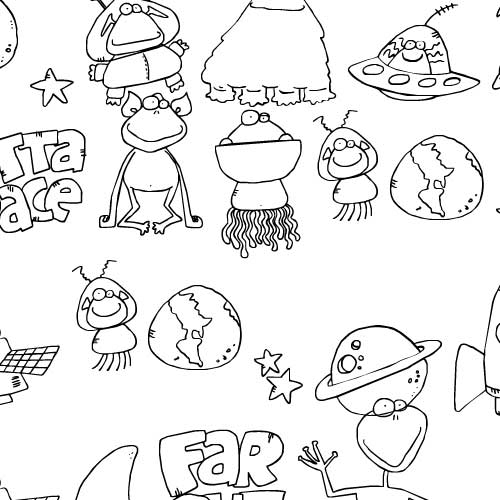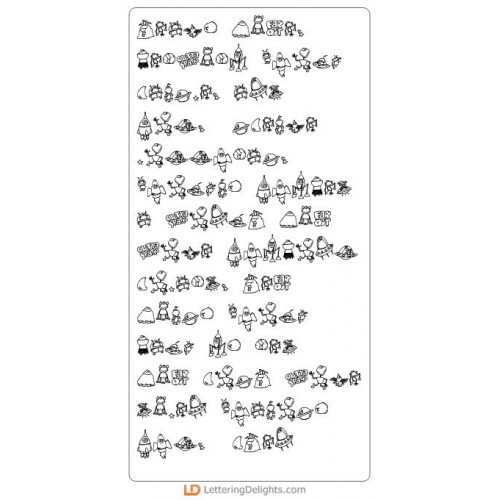
DB Alien - DB
Creatures from outer space have never been so cute. DoodleBat Alien is a collection of visionary doodles. Check out other similiar fonts in Jillustration's Space Age Bundle.